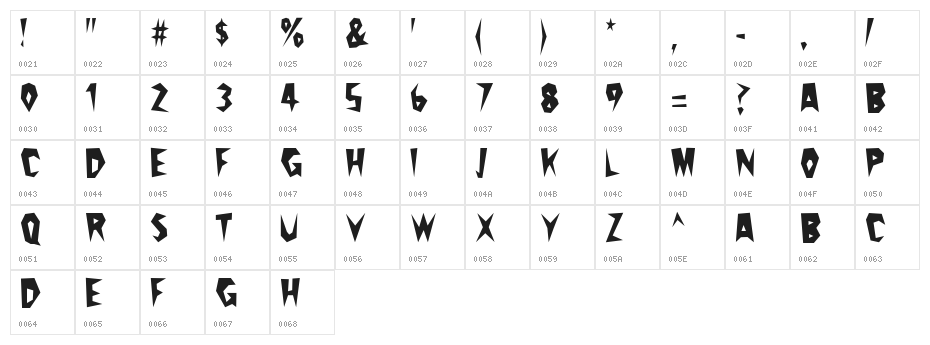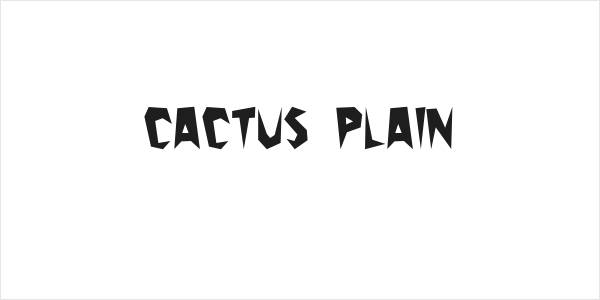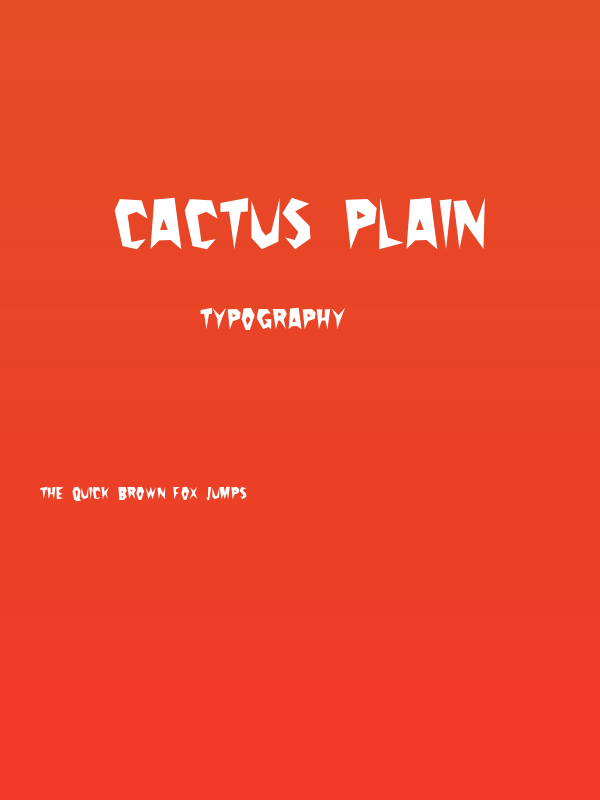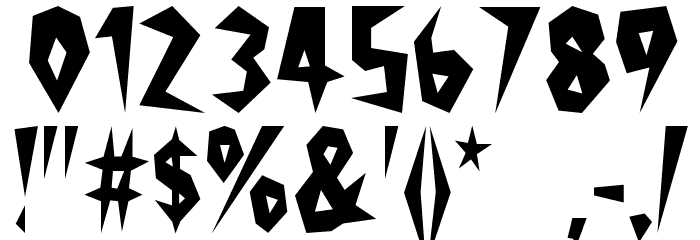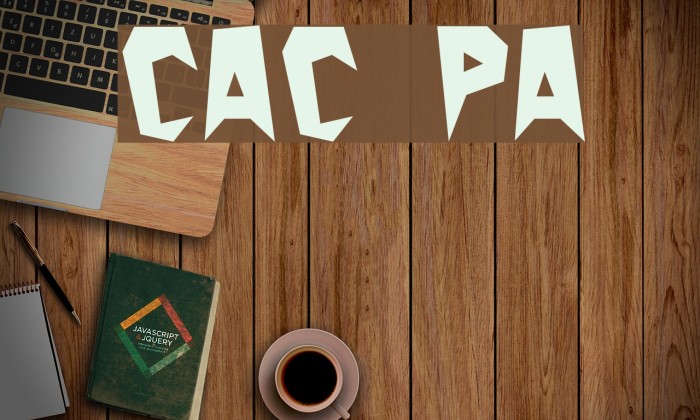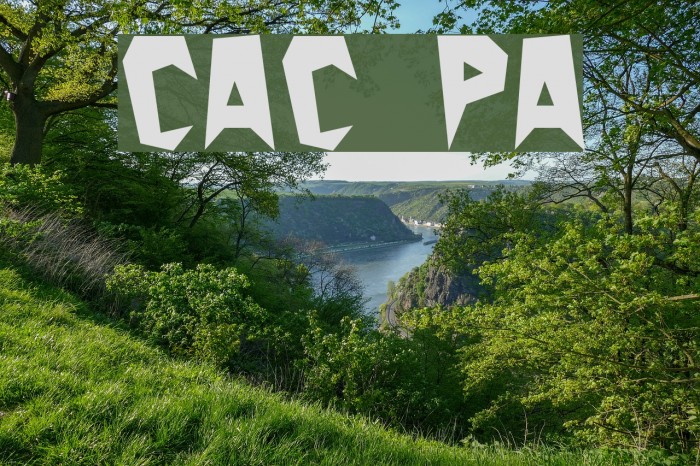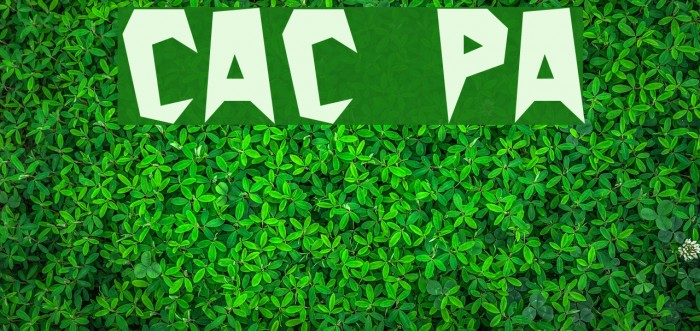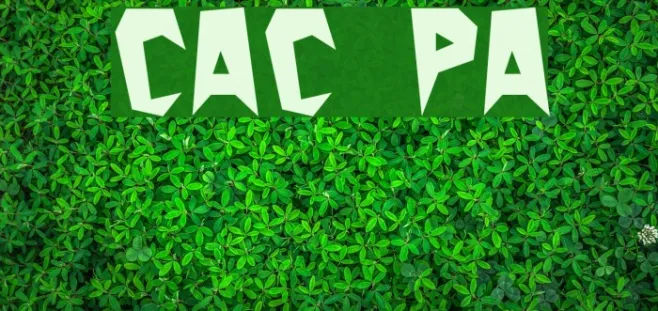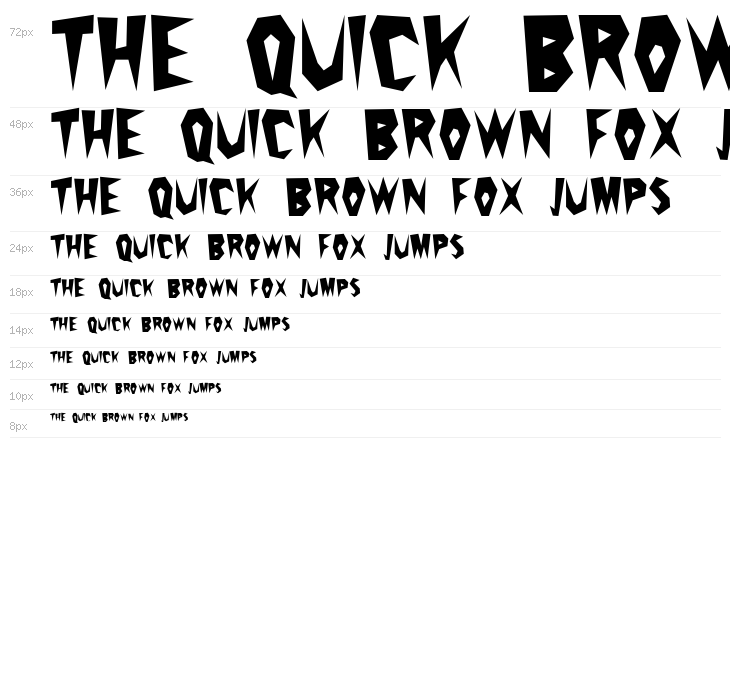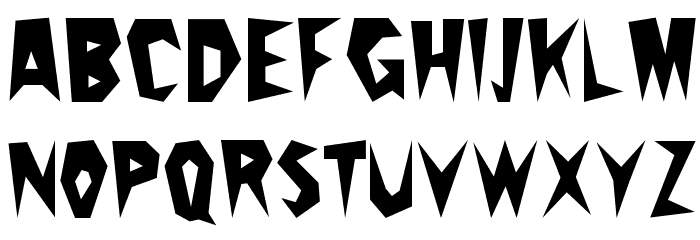
Cactus Plain Font
Cactus Plain Description
This font features a bold and jagged design, reminiscent of sharp, angular shapes that evoke a sense of edginess and modernity. The characters are uniquely crafted with irregular edges, giving them a dynamic and energetic appearance. This style is particularly eye-catching and works well for attention-grabbing headlines or artistic projects. The uppercase and lowercase letters maintain a consistent style, with numbers and special characters following the same angular theme. The font's distinctiveness makes it suitable for creative and unconventional uses.
| Proposed Projects | Ideal for music album covers, event posters, video game graphics, and branding for edgy or alternative products. |